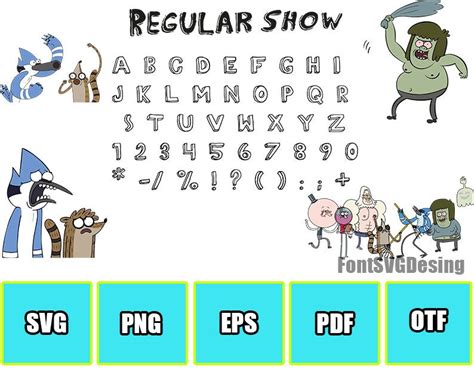
Regular Show Font. In dingbats > tv, movie. Web the font is available in solid and hollow styles, with capital letters, lowercase letters, numbers and limited punctuation marks.
23,115 downloads (1 yesterday) 100% free. Web i found a few here: In dingbats > tv, movie. Web regular show by woodcutter. But they only seem to work well for the regular show portion of the title and not. The font features bold, rounded letters with a slight tilt, giving it a fun and lighthearted look. This is most probably not a font. Web is regular show. You can download the font for free here. Web regular show font free download font details.
23,115 downloads (1 yesterday) 100% free. This is most probably not a font. You can download the font for free here. In dingbats > tv, movie. Web the font is available in solid and hollow styles, with capital letters, lowercase letters, numbers and limited punctuation marks. Web i found a few here: Web is regular show. 23,115 downloads (1 yesterday) 100% free. But they only seem to work well for the regular show portion of the title and not. The font features bold, rounded letters with a slight tilt, giving it a fun and lighthearted look. Web regular show by woodcutter.